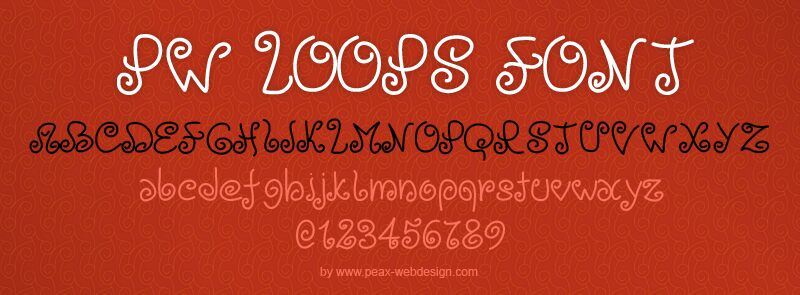
PW Loops by Peax Webdesign is a free curly display font with the loose touch of hand-drawn lettering. Long, narrow letters loop into spirals, hooks, and heart-like turns, with uneven proportions that keep the line lively and slightly eccentric.
Its storybook character makes it a natural fit for children's publishing and playful event posters. The looping shapes also suit sweet-shop packaging and handmade craft branding, where the lettering can echo ribbons, icing, or doodled decoration. It is most convincing in a cheerful title that lets those oversized curls become part of the illustration.